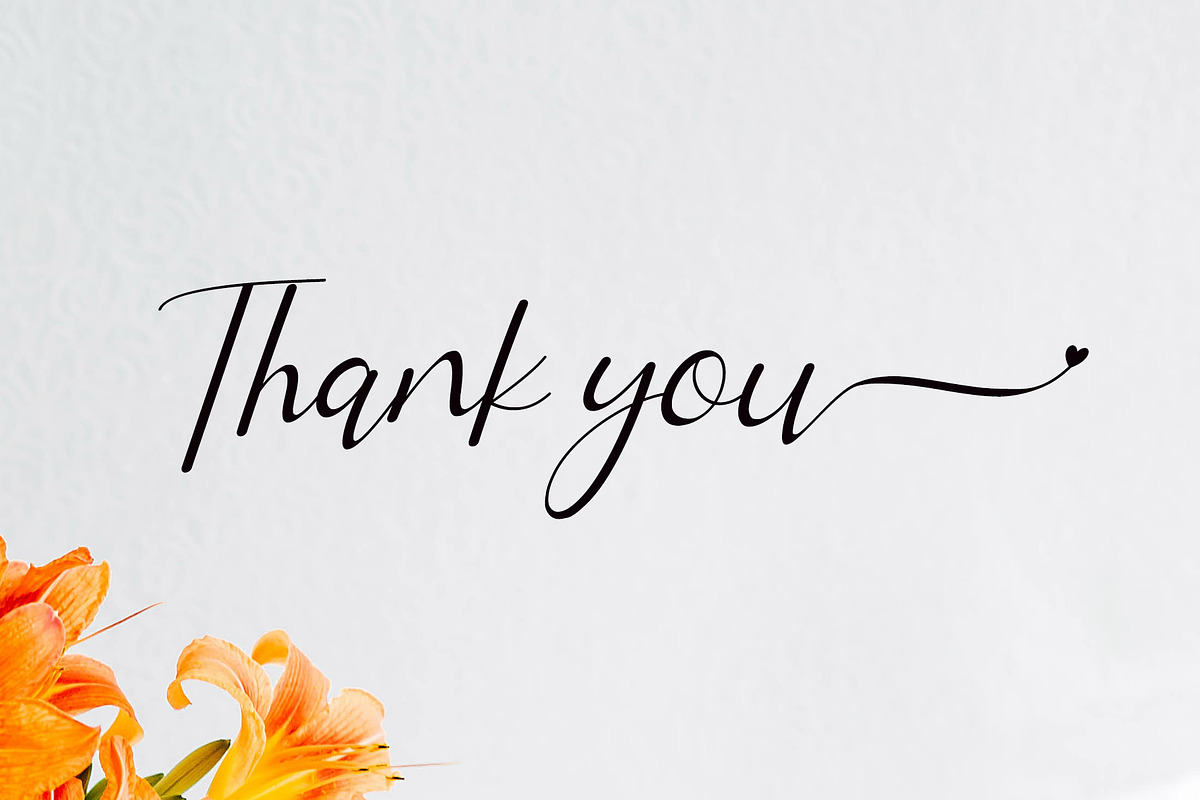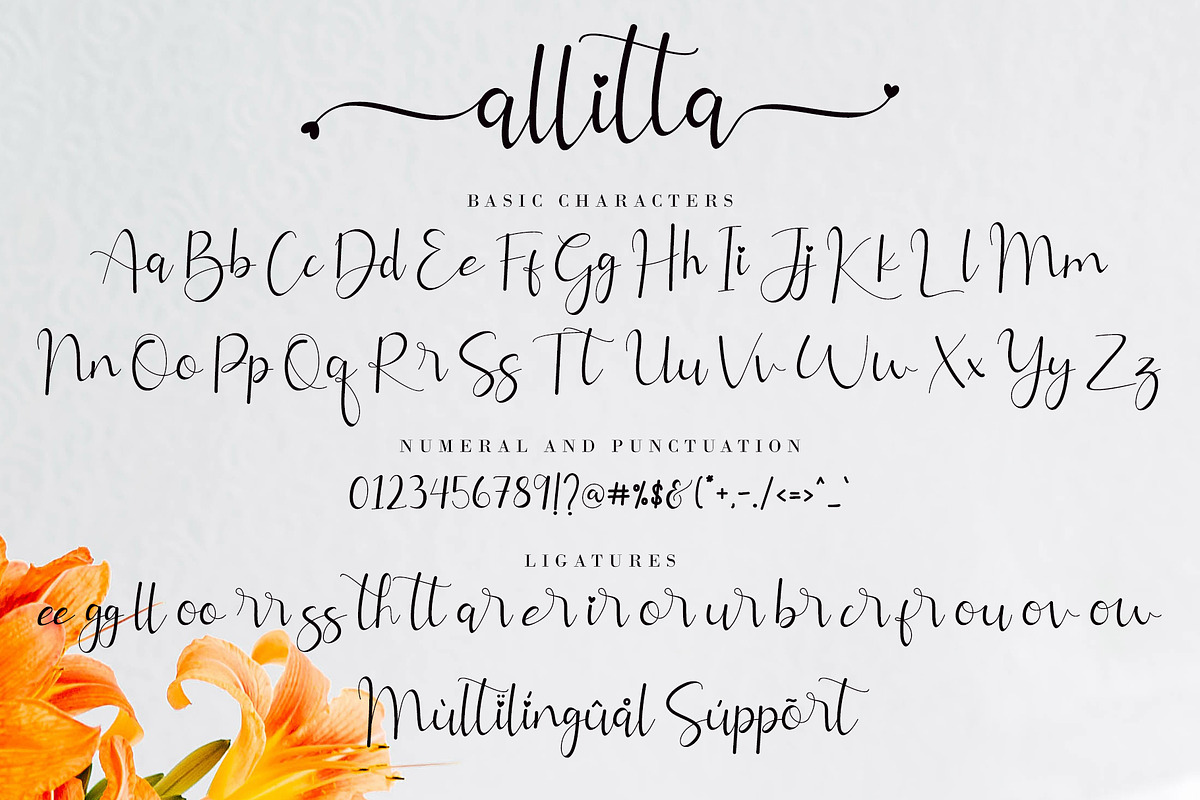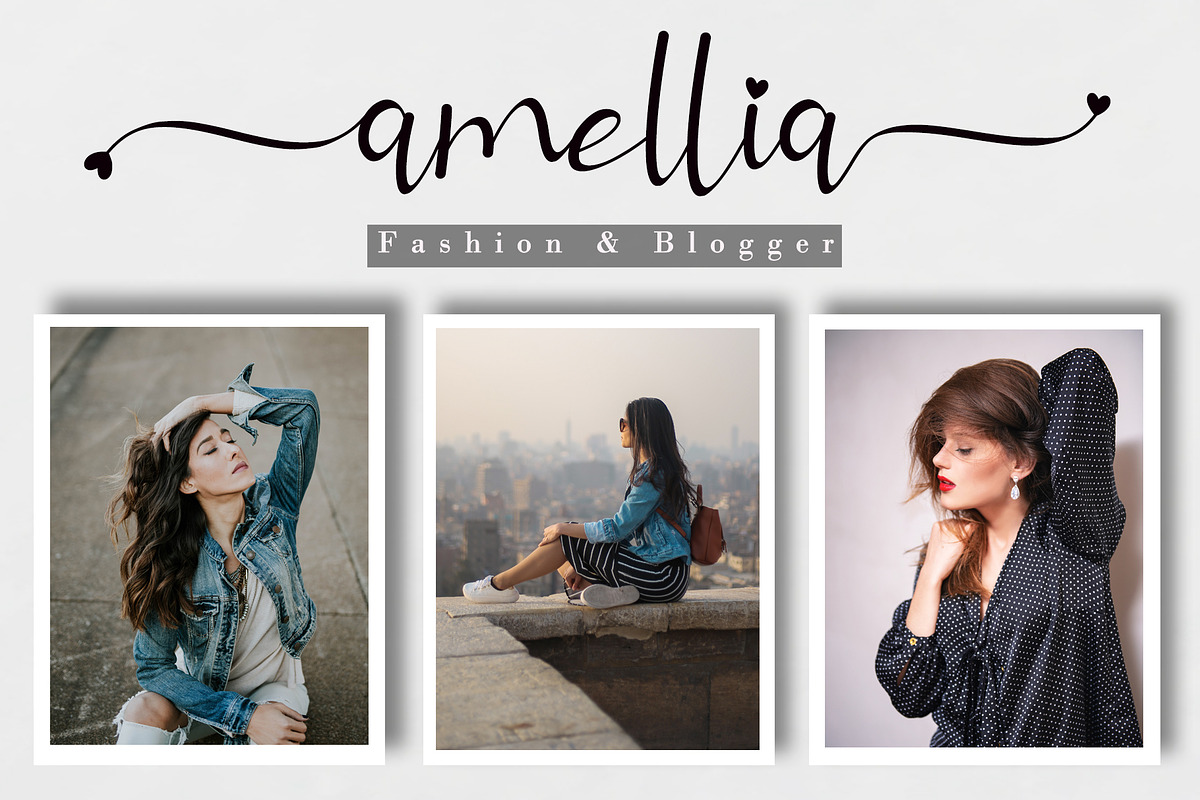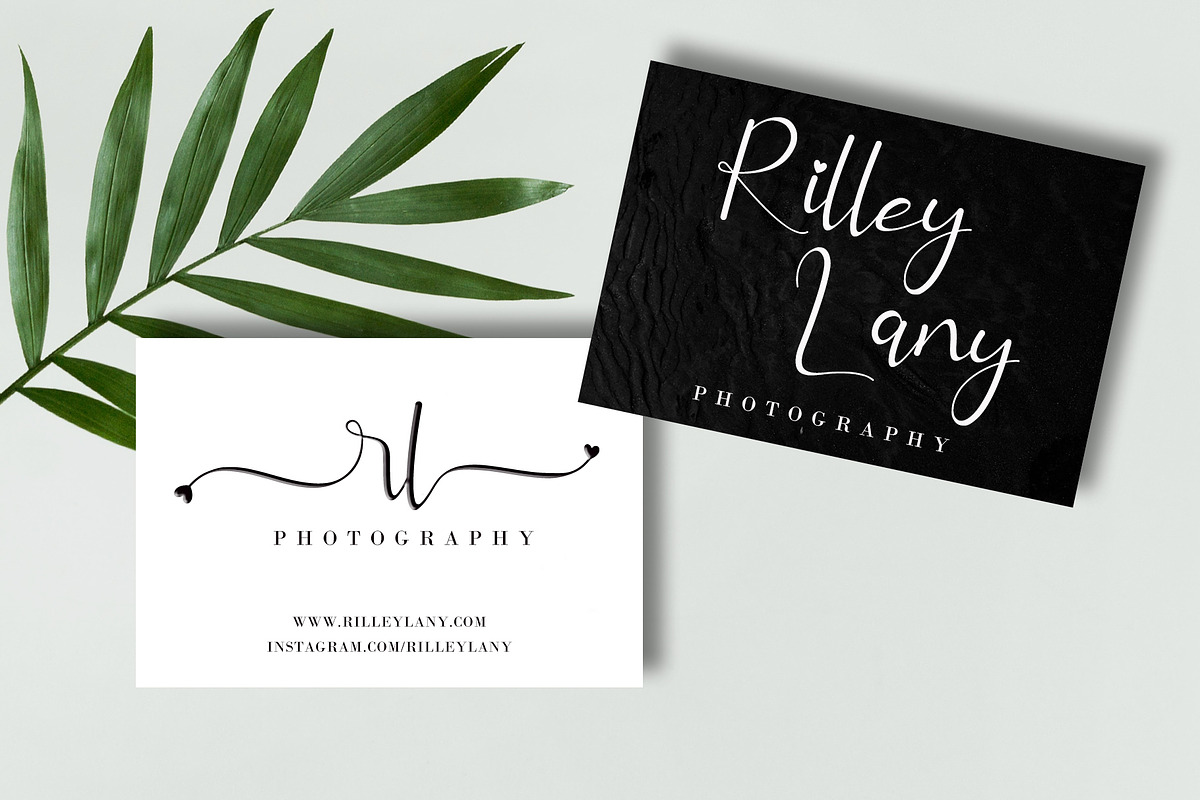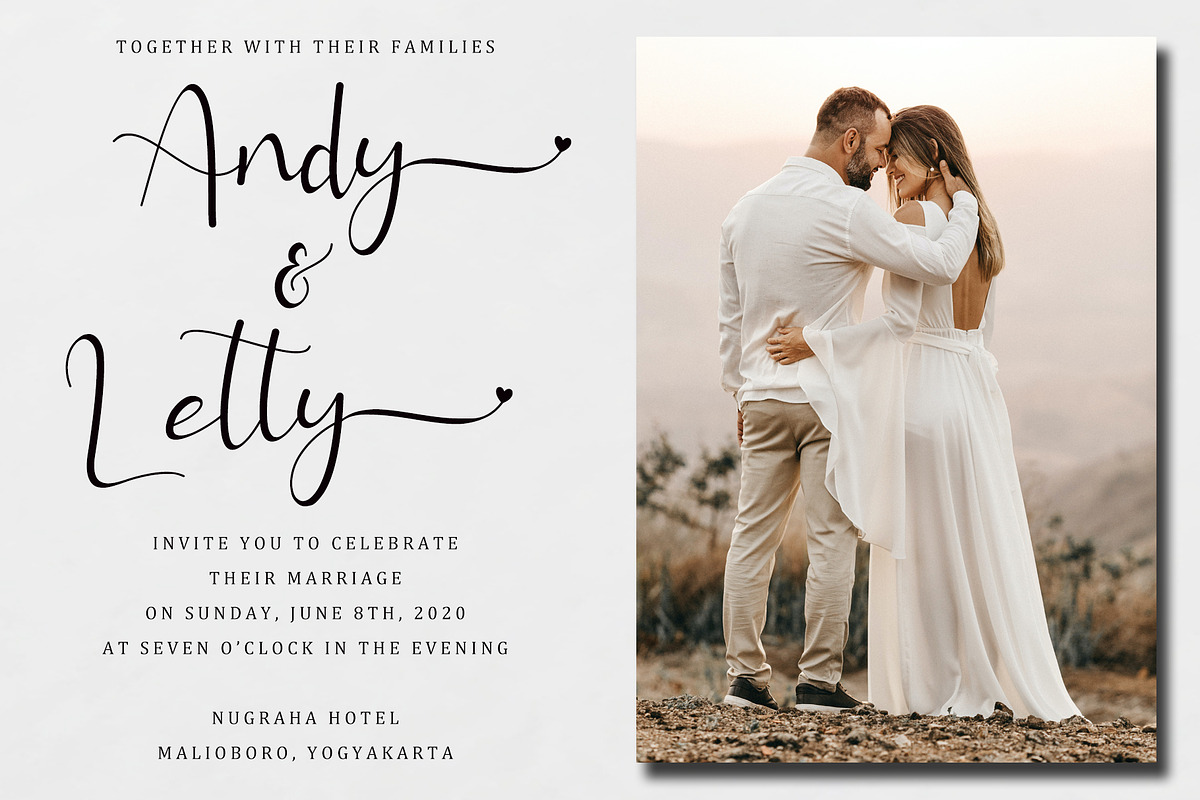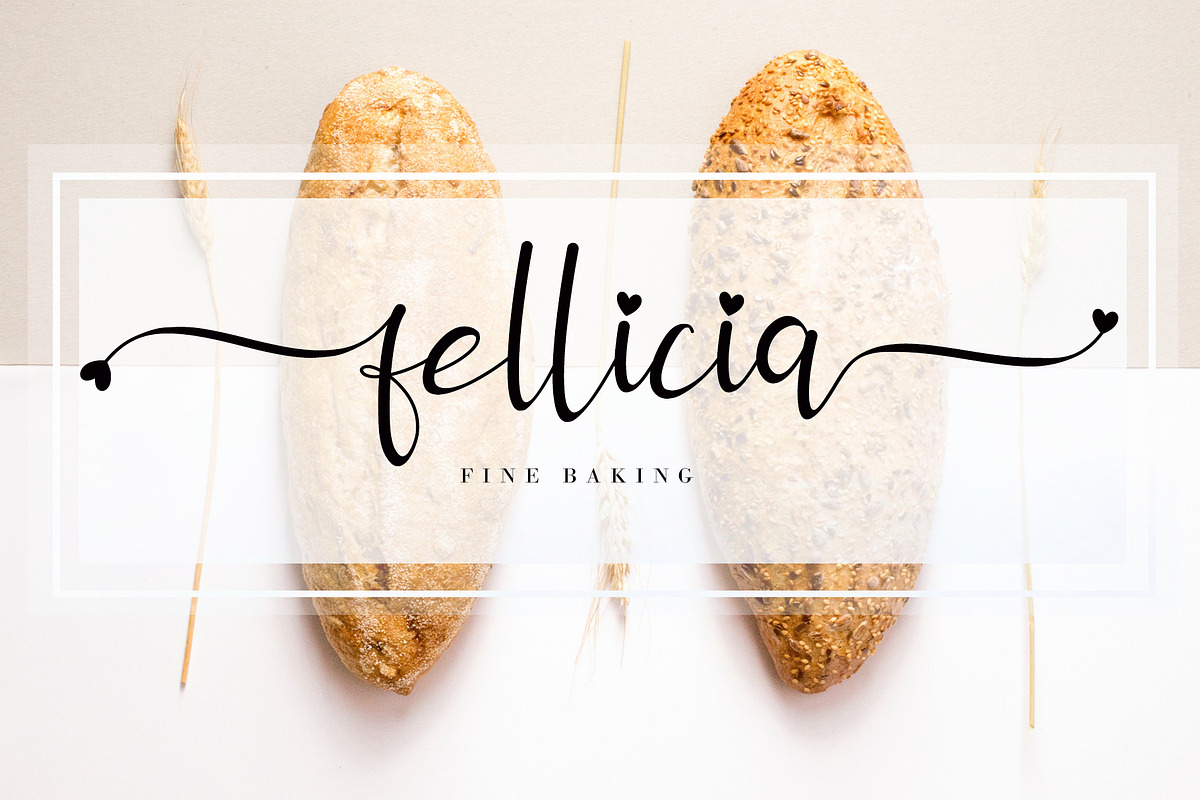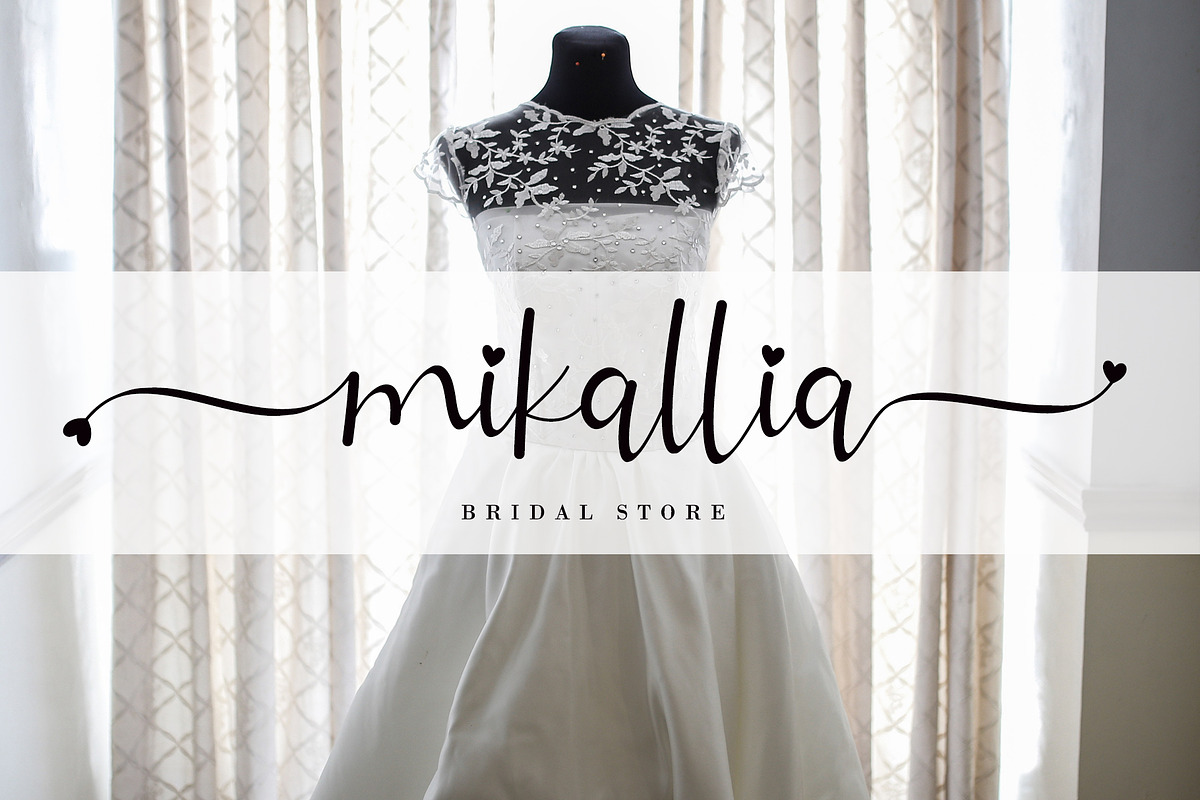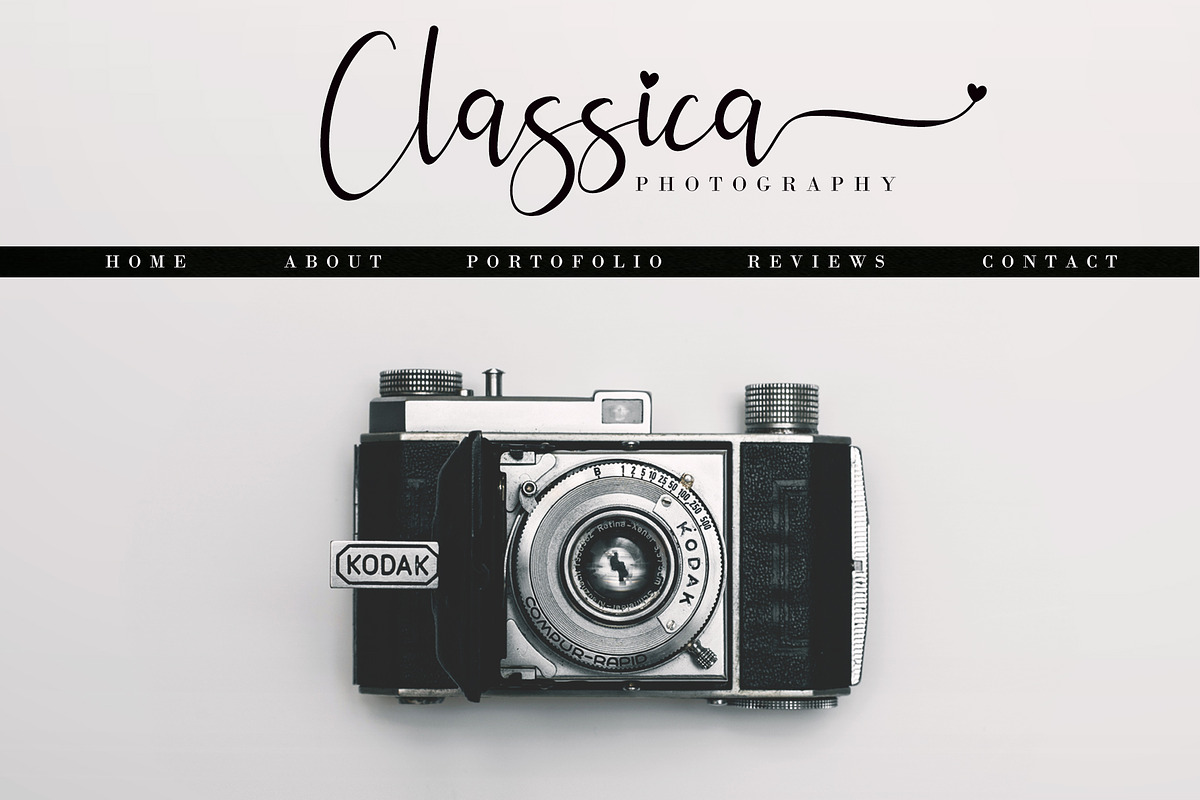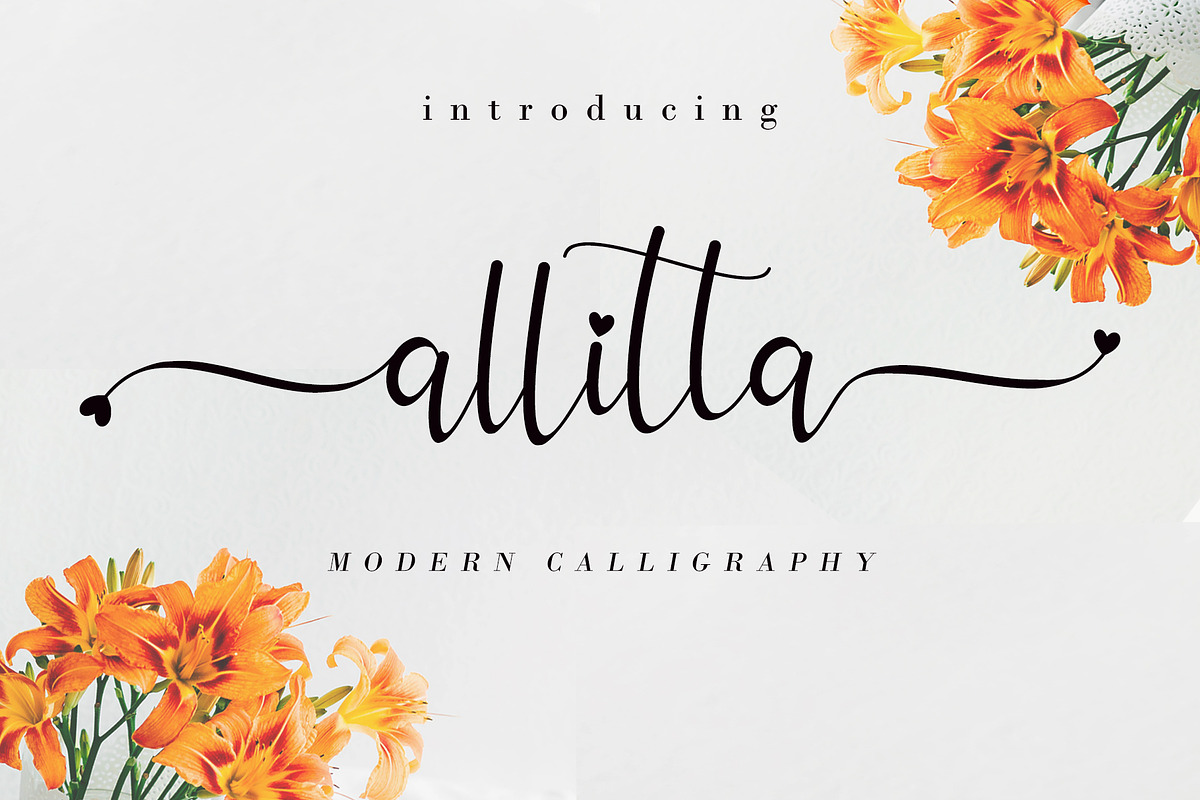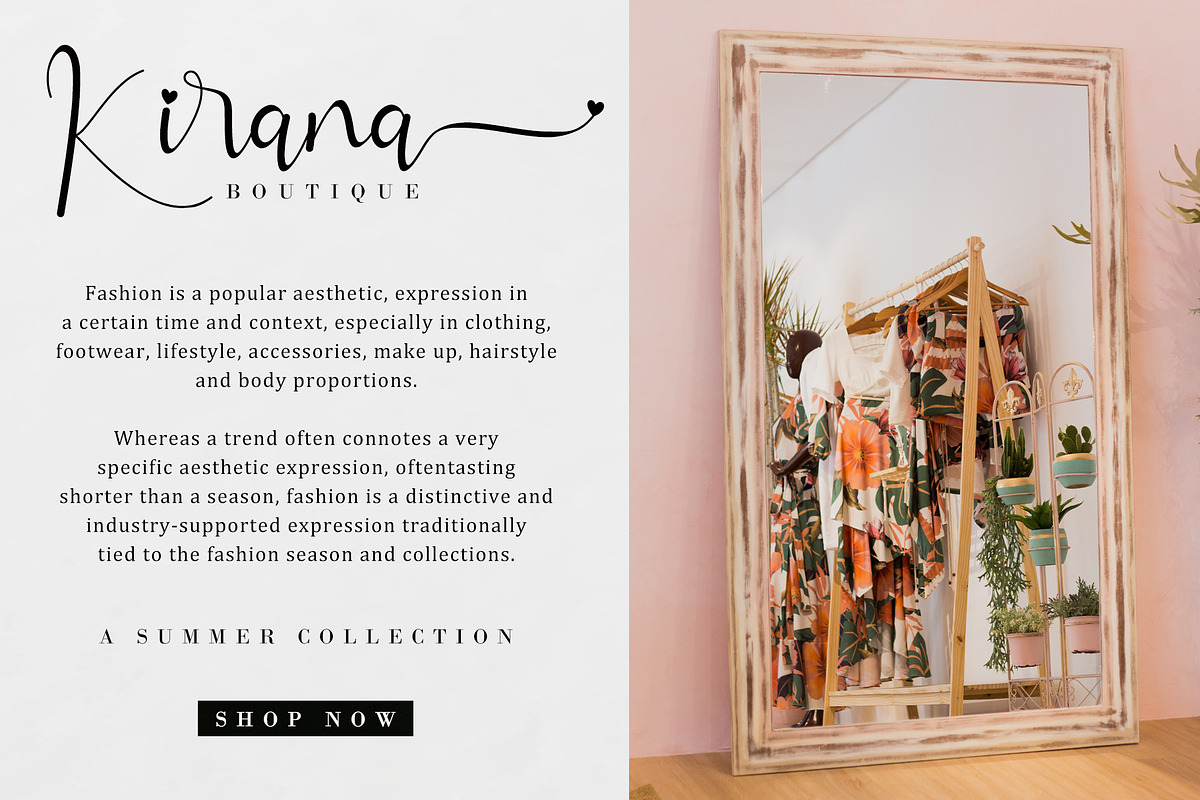
Allitta
Allitta is an elegant handwritten font. It features beautiful swashes that will take your projects to the next level. Fall in love with its authentic feel and use it to create gorgeous wedding invitations, beautiful stationary art, eye-catching social media posts, and cute greeting cards.
Allitta Features :
- Support multilingual; ä ö ü Ä Ö Ü ß ¿ ¡
- (a-z) titling, (a-z) swashes, ligatures
- This font is PUA encoded which means you can access all of the playful glyphs, swashes, and ligatures with ease!